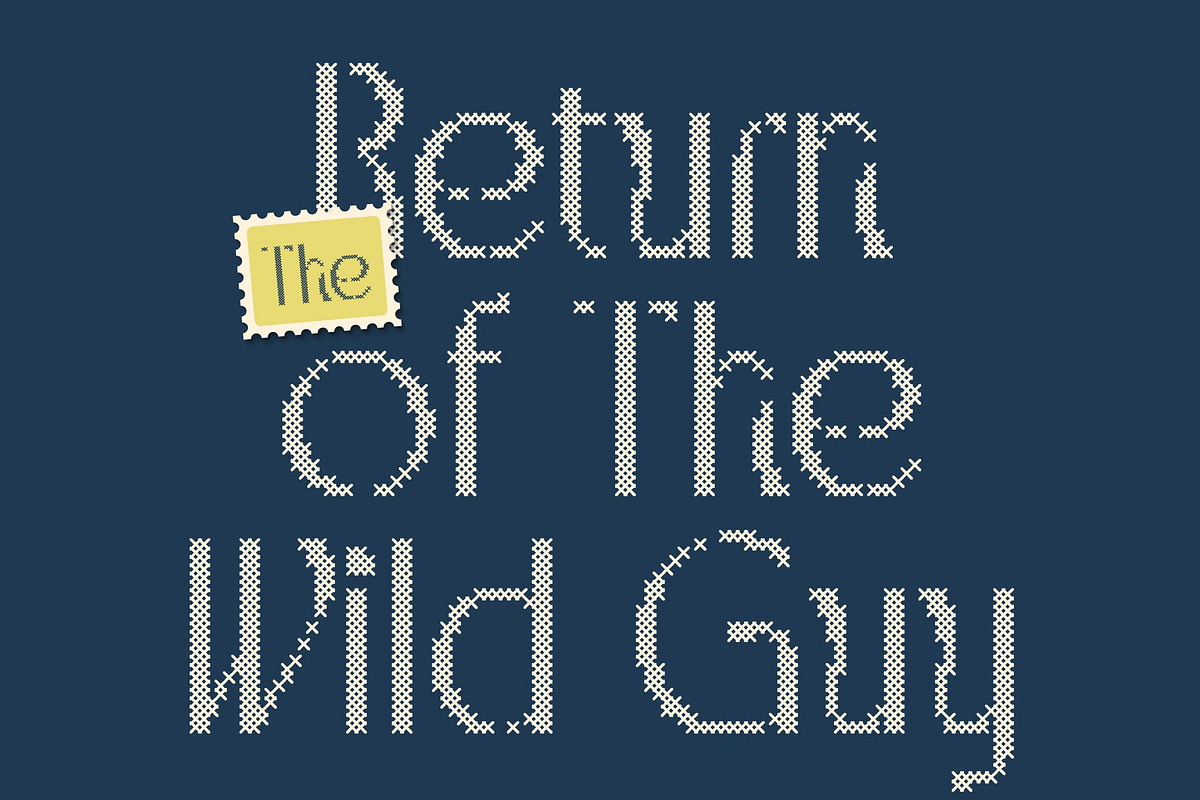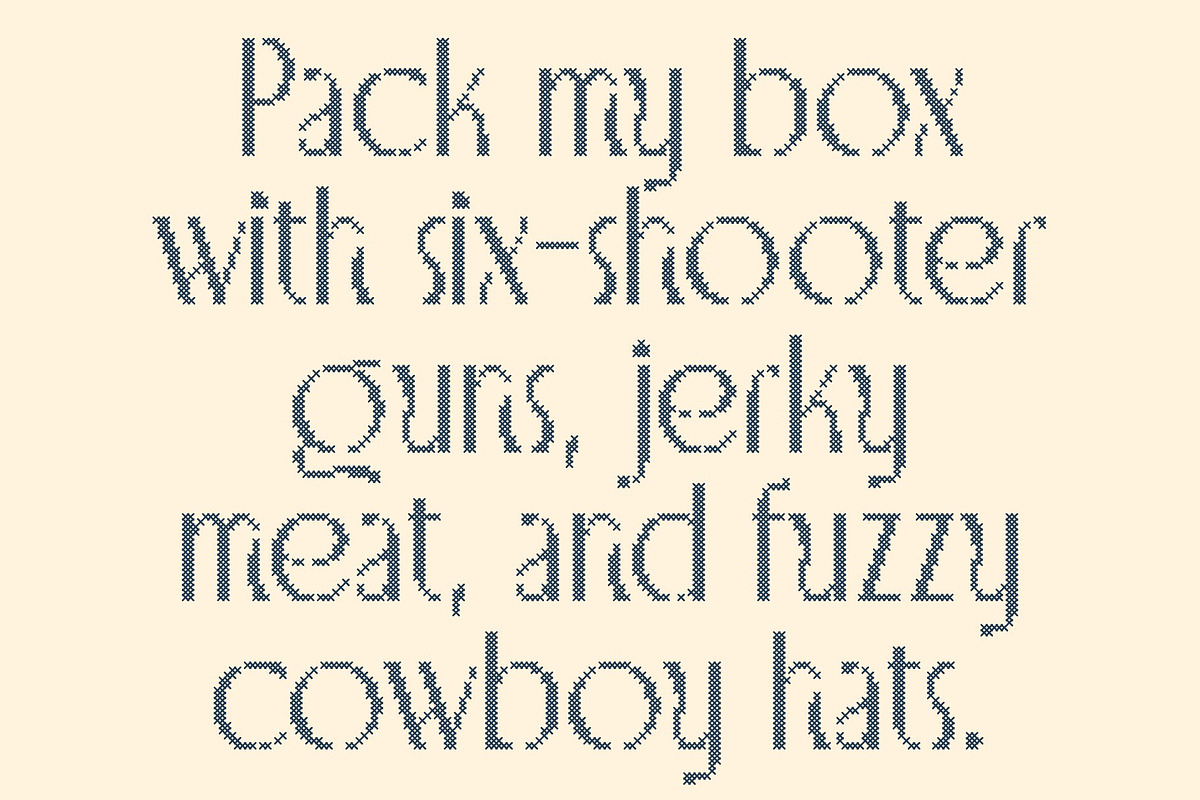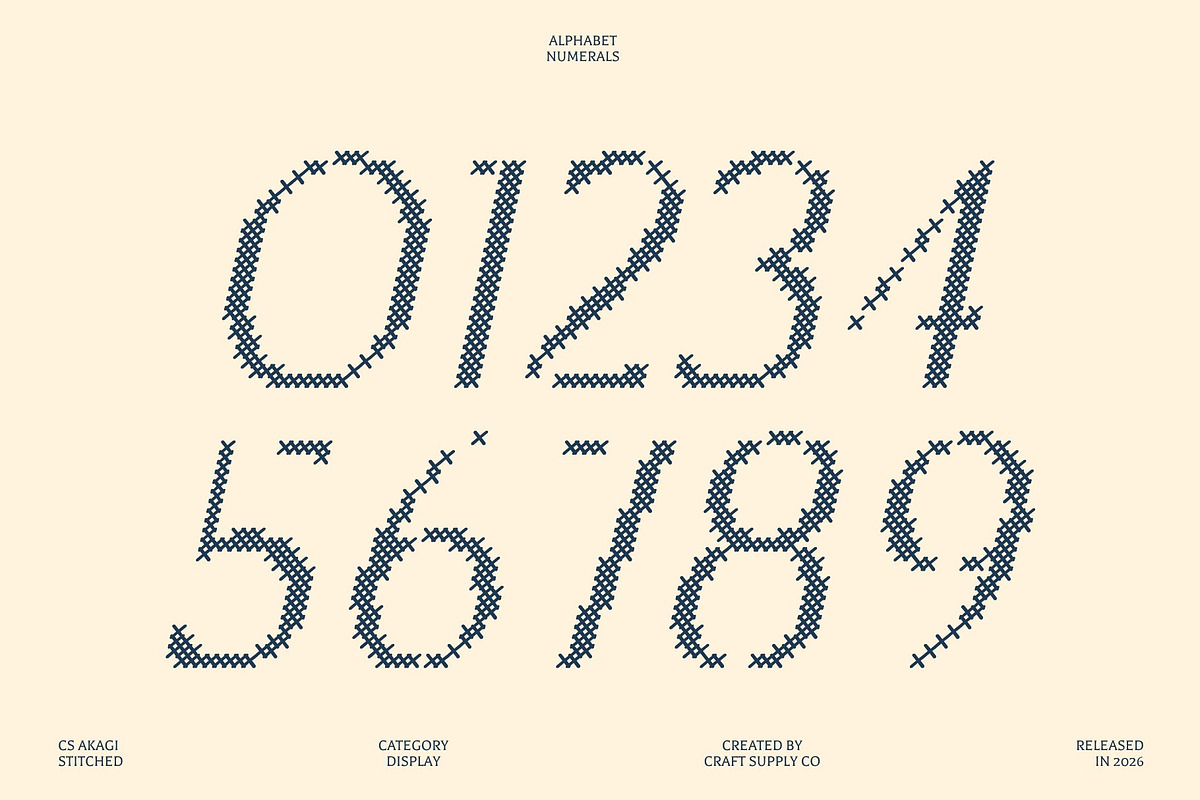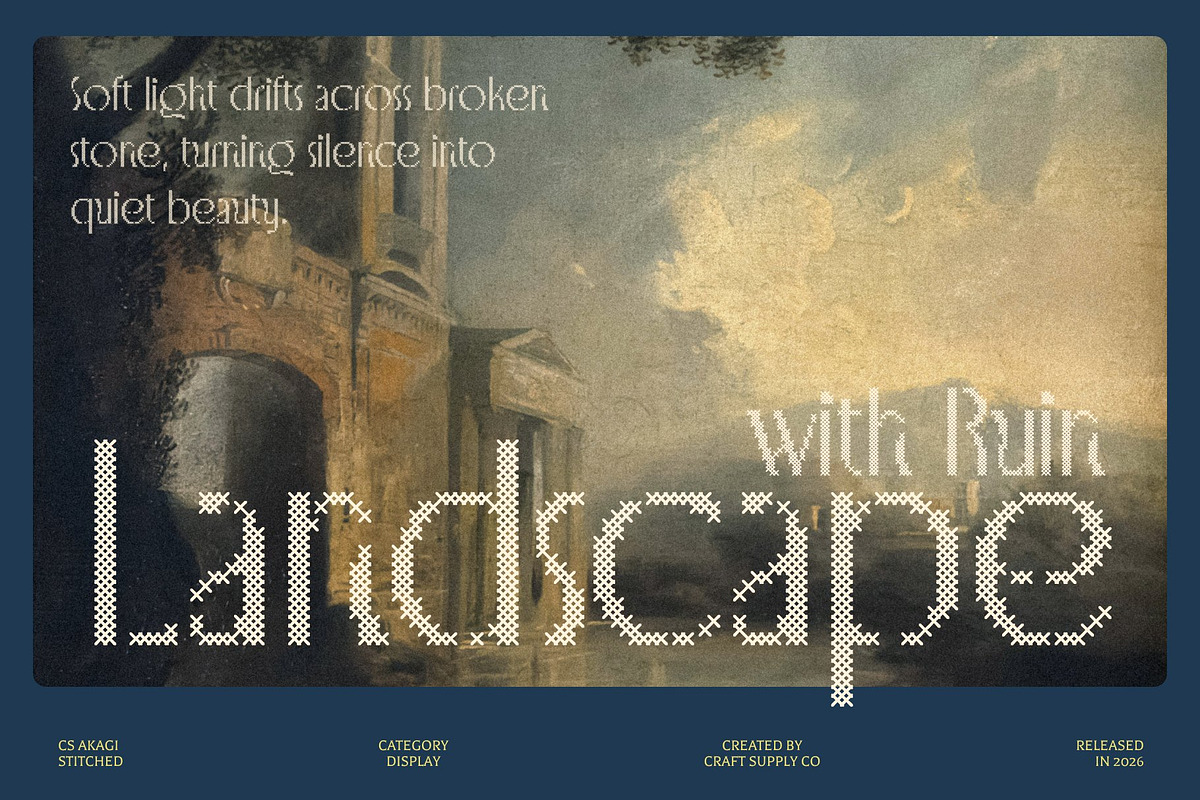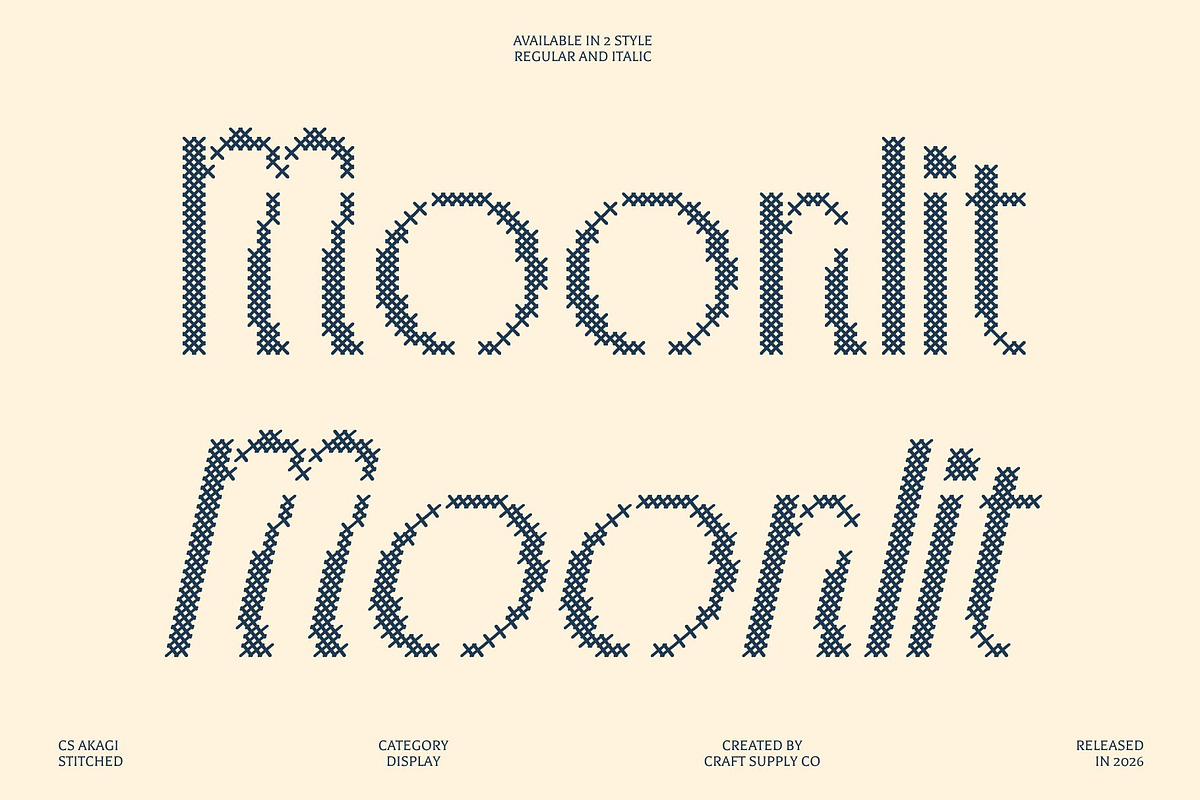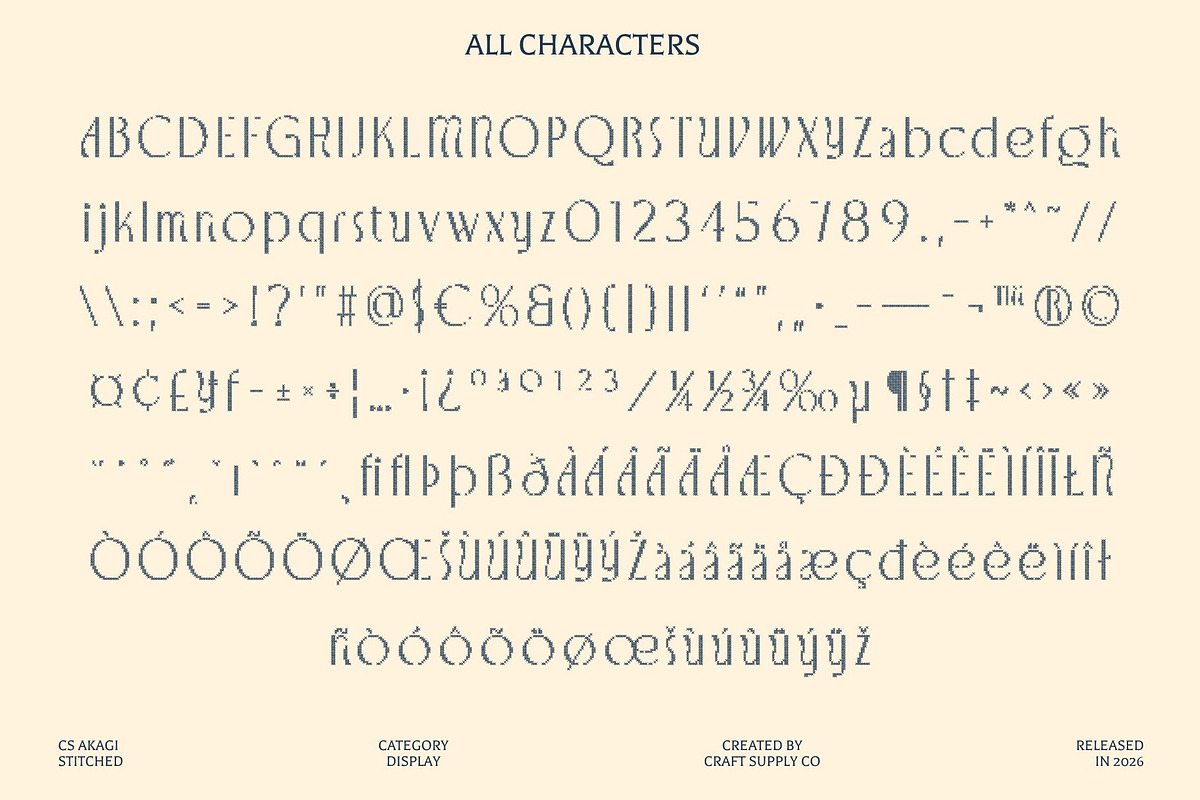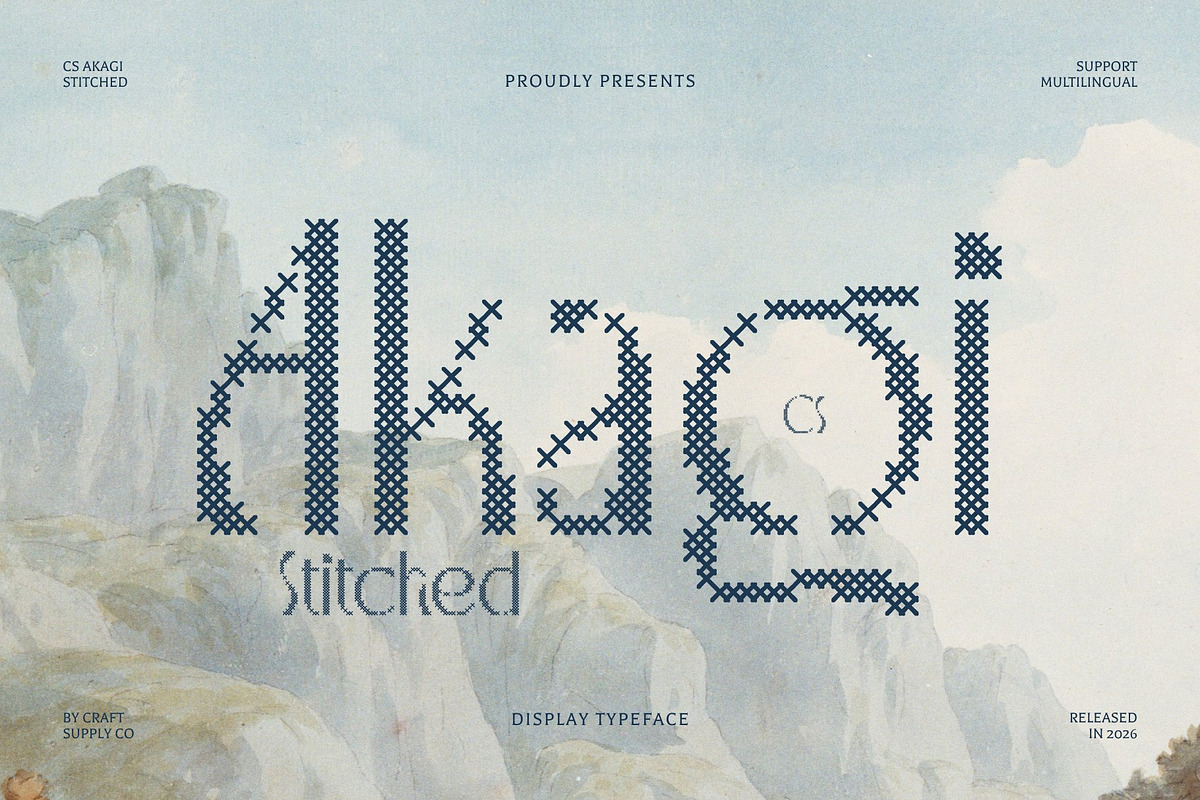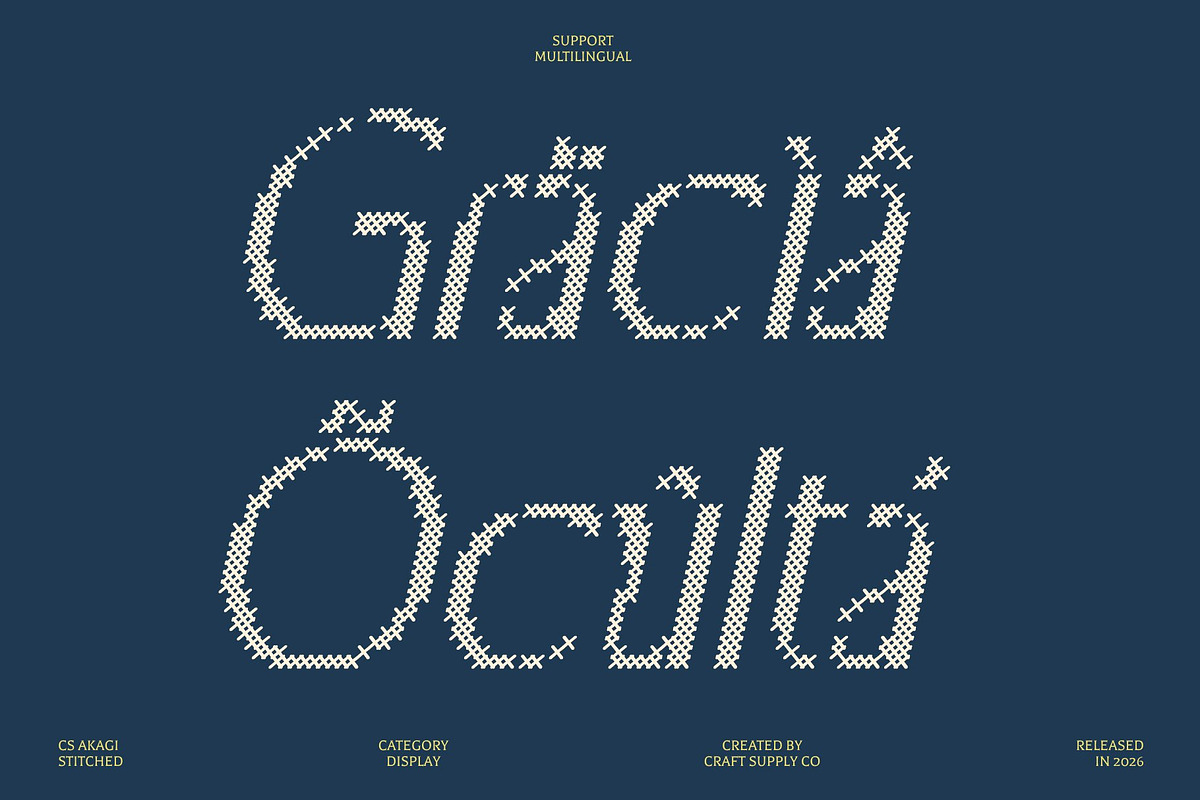
CS Akagi Stitched
CS Akagi Stitched – Elegant Flow with Art Nouveau Sophistication
Elegant Sans Serif with Handcrafted Character This is an elegant sans serif font defined by refined curves and a sophisticated presence. Inspired by the organic flow of Art Nouveau, it blends fluid motion with clean structural clarity, resulting in a typeface that feels both artistic and contemporary. Enhanced with a stitched style inspired by thread sewn or embroidered on fabric.
Organic Curves with Embossed Stitch Detail The graceful rhythm of this font is enriched by a distinctive cross-shaped stitch pattern, creating an embossed and structured texture across each letterform. This stitched detailing evokes a classic, nostalgic, relaxed, and warm impression, adding handcrafted depth while preserving the font’s clarity and elegance.
Harmony of Classic and Modern Nuances Built on a clean sans serif foundation, maintains excellent legibility while incorporating artistic and geometric influences. The combination of structured simplicity and flowing decorative elements creates a harmonious balance between softness and precision. The stitched texture enhances this balance, bringing a personal and expressive dimension to its timeless yet modern aesthetic.
Perfect for Editorial, Fashion, and Premium Branding Designed for high-end creative applications, this is ideal for editorial layouts, advanced book design, packaging, fashion branding, invitations, and luxury visual identities. It performs beautifully in both long-form text and striking headlines, delivering elegance, warmth, and sophistication in every use.